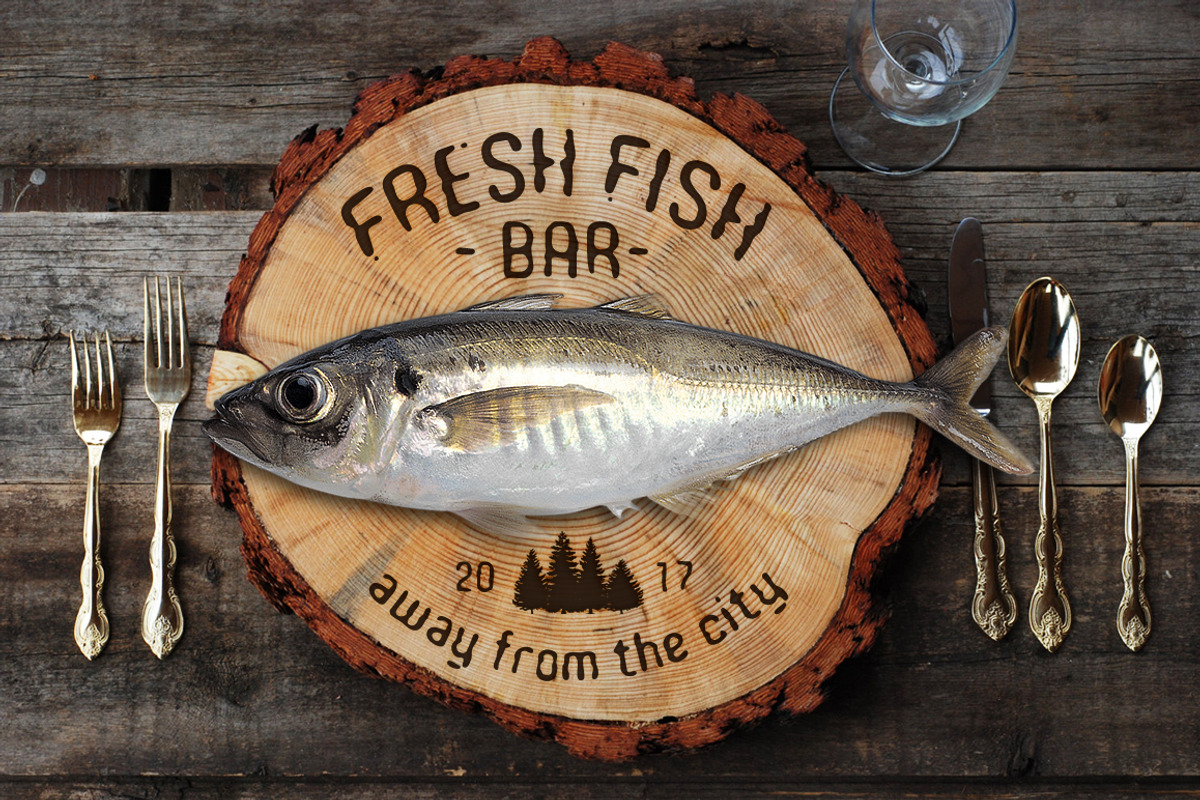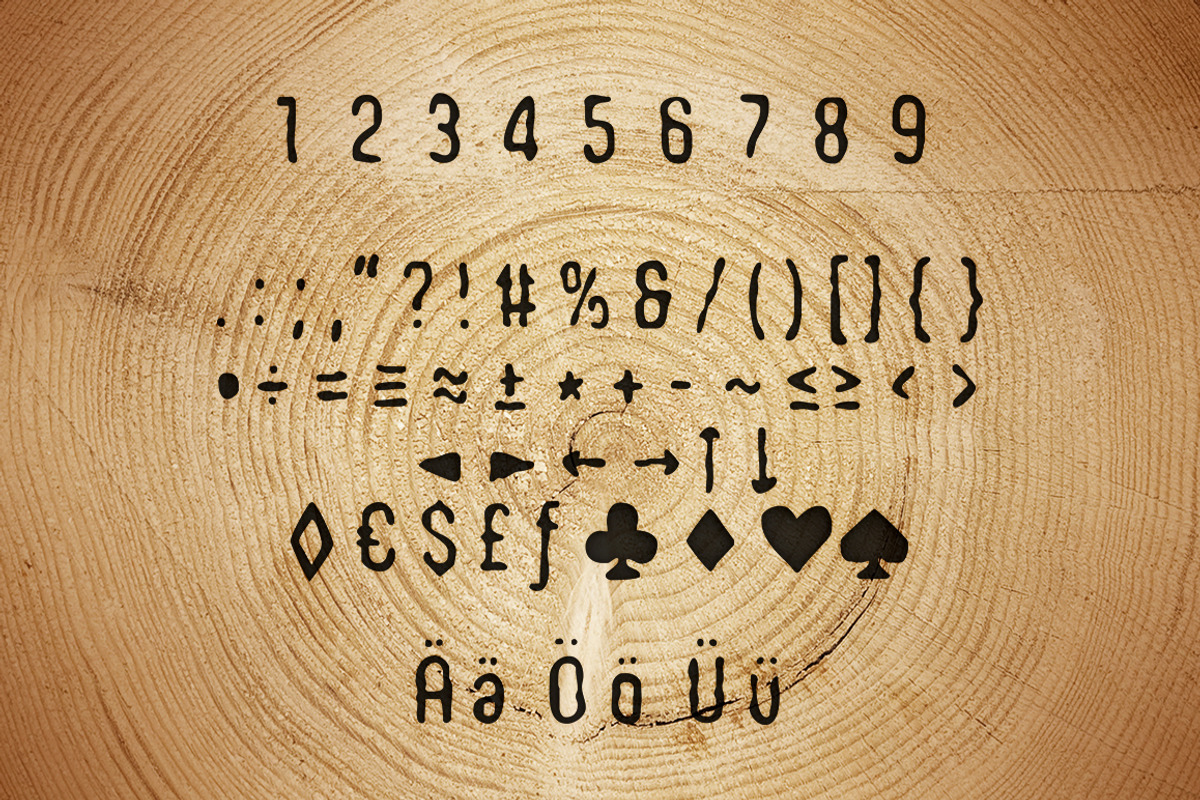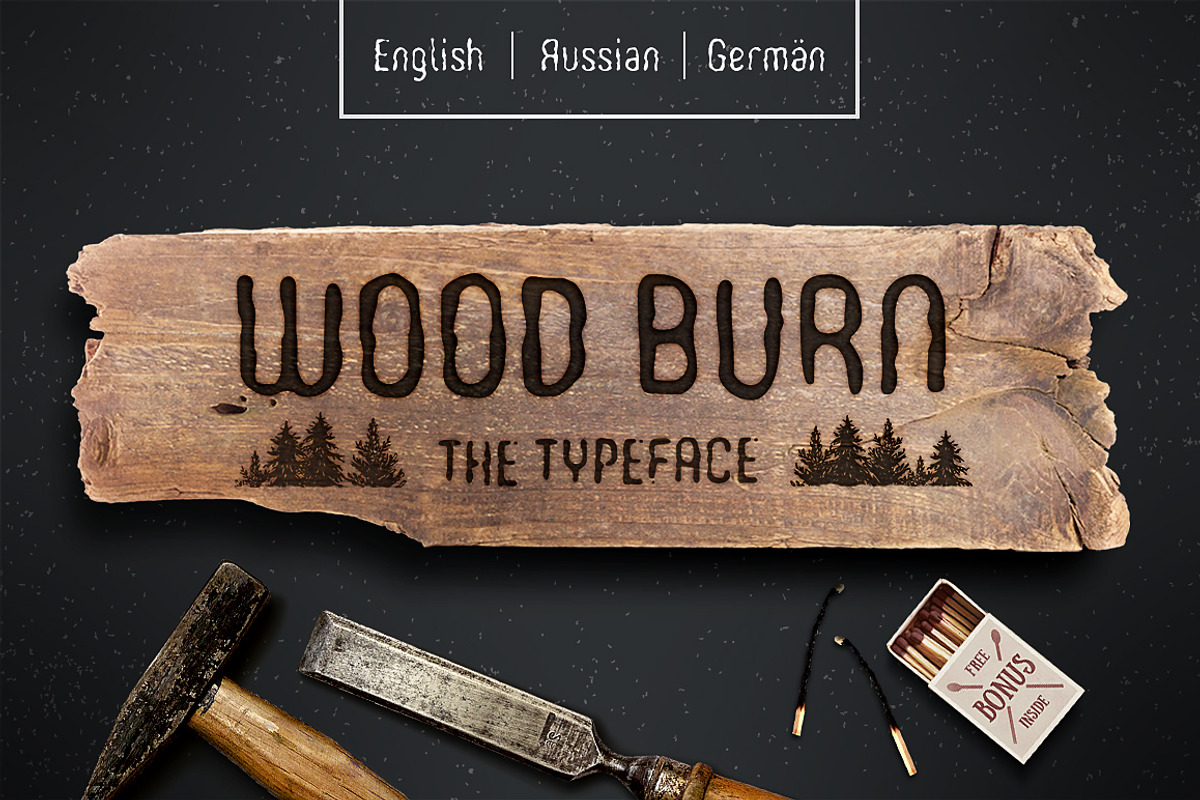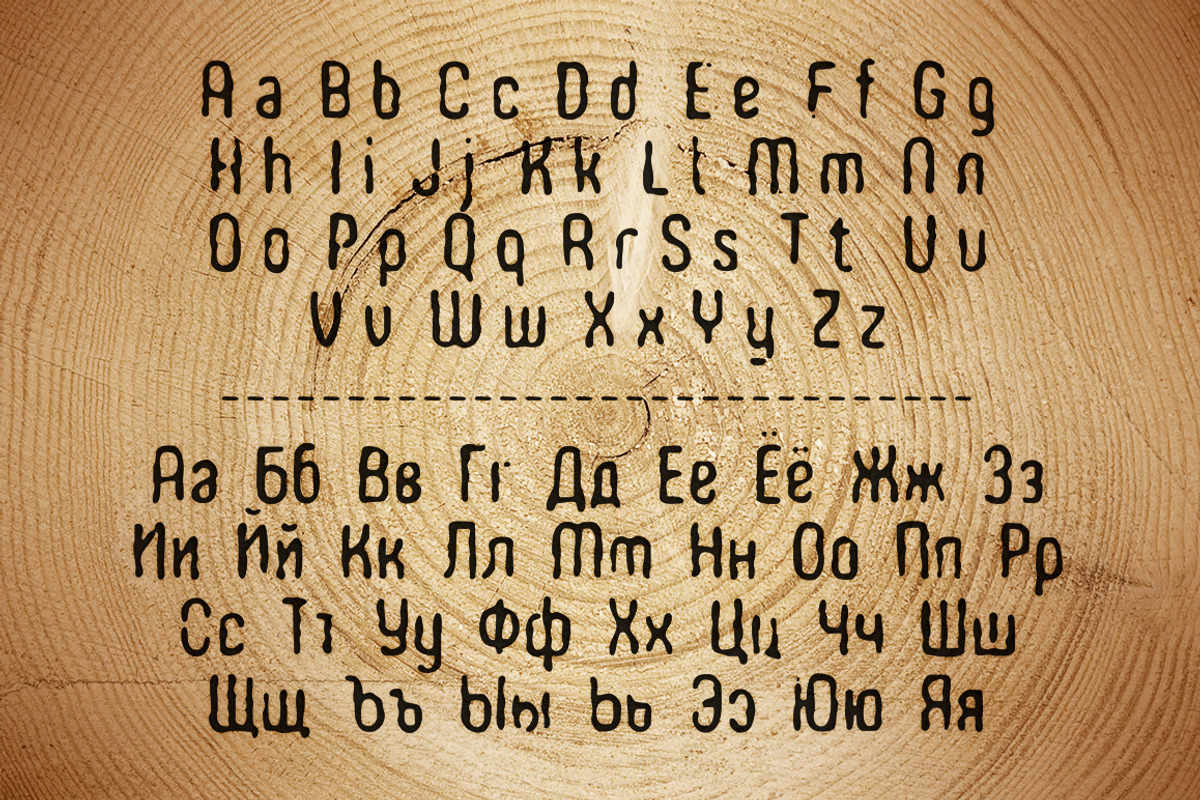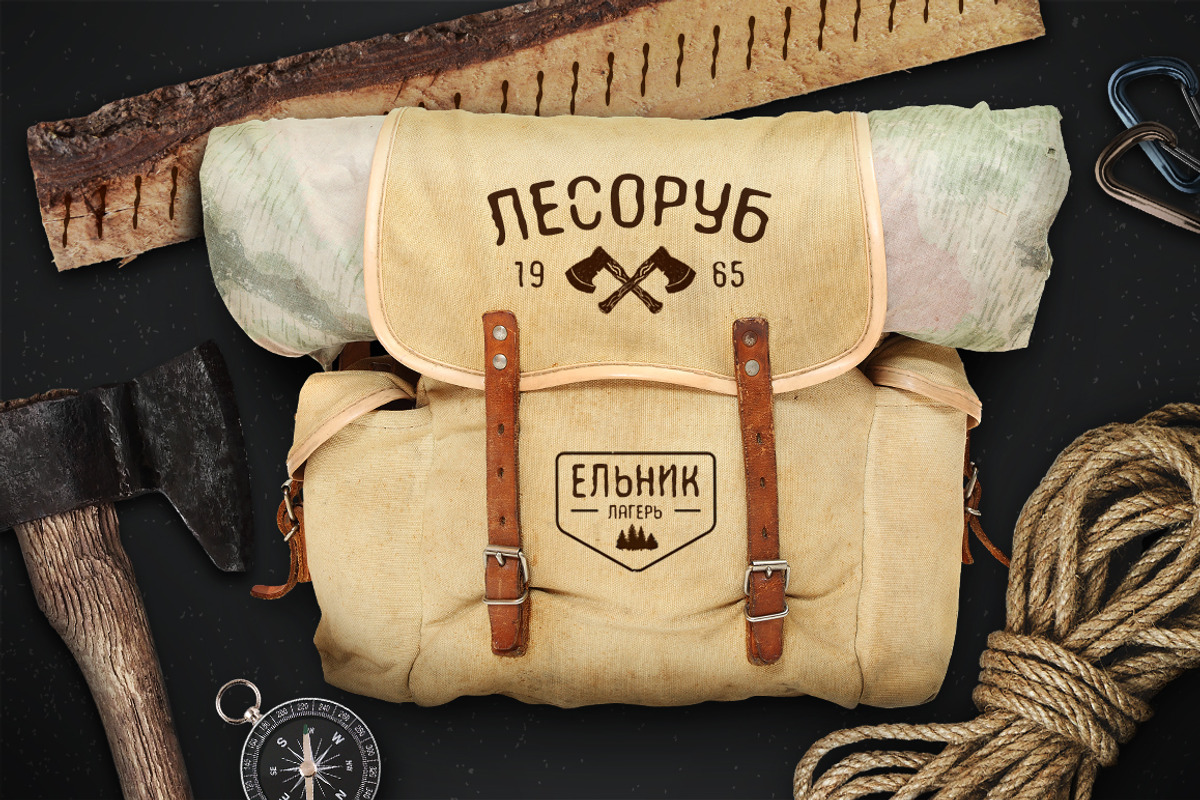
WoodBurn. Handcrafted Font
WoodBurn. Handcrafted Font by Cosmic Store is a font selected for branding, posters, packaging, typography.
Why WoodBurn. Handcrafted Font is worth a look
WoodBurn. Handcrafted Font by Cosmic Store fits naturally into Branding, posters, packaging, typography.